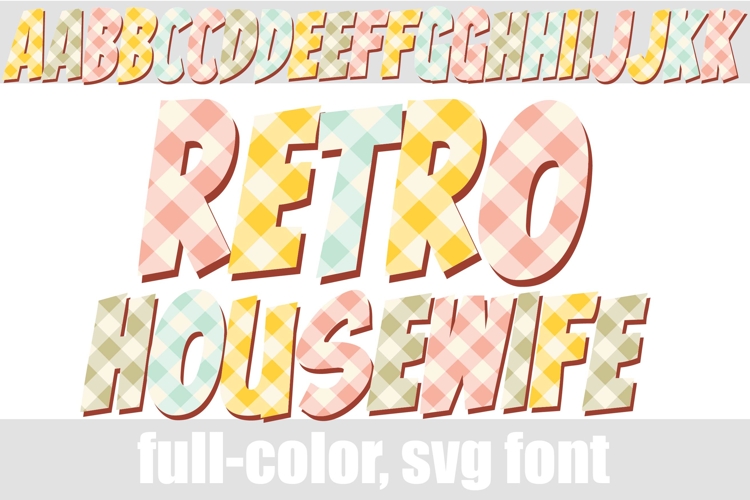
Retro Housewife Color Font
This full-color, sans serif font in springy palette of gingham prints. There is an alt case of additional colors of each letter that you can access through your system's character map.